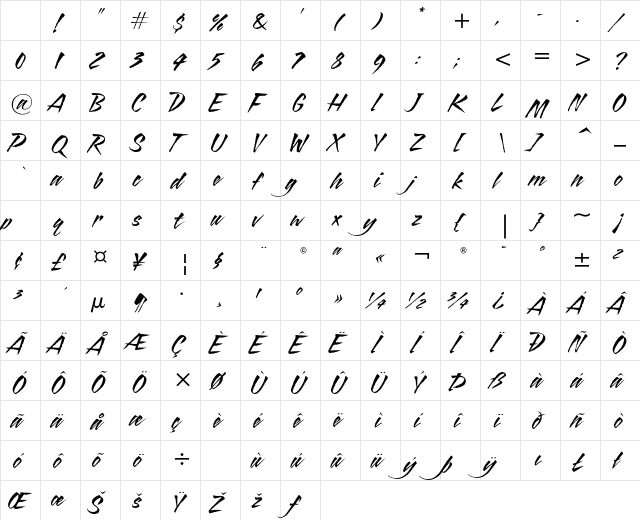
Blaze ITC is a composed and adaptable typeface that performs quietly and consistently across a wide range of design contexts. The slanted form adds forward momentum and visual energy.
Pro Tip: Use Blaze ITC for emphasis, pull quotes, and subheadings where its slanted energy can add rhythm to the layout.